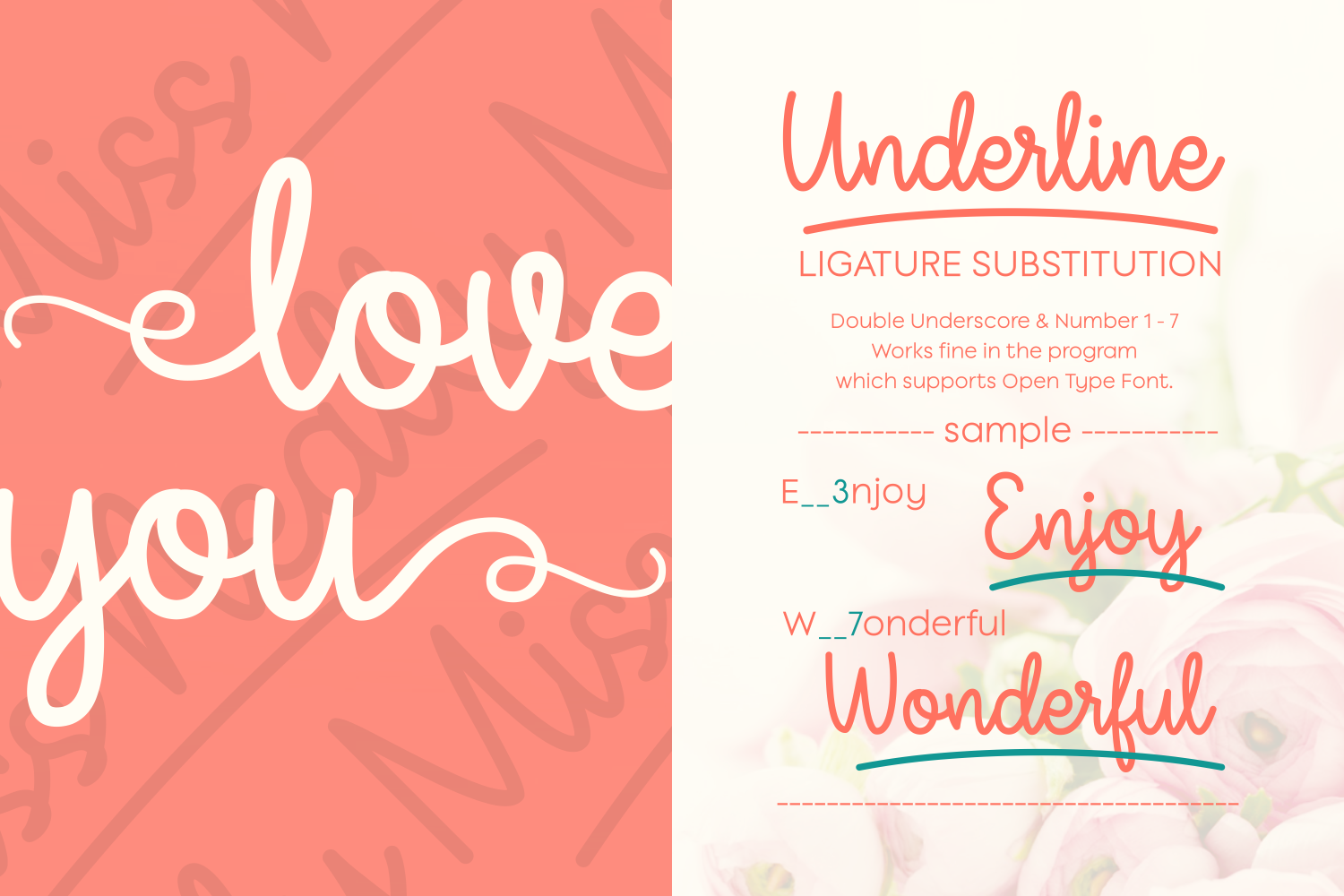
Miss Neally Font
About Miss Neally Font
Miss Neally is a monoline script font created by Situjuh Nazara.
Smooth & Elegant are the best words to describe this stunning font.
Miss Neally features initial and terminal swashes for every character. These bonus characters are PUA encoded and can be accessed anywhere. Software that supports OpenType features will also have the option to automatically generate drawn lines underneath the text. The font includes 7 variations.